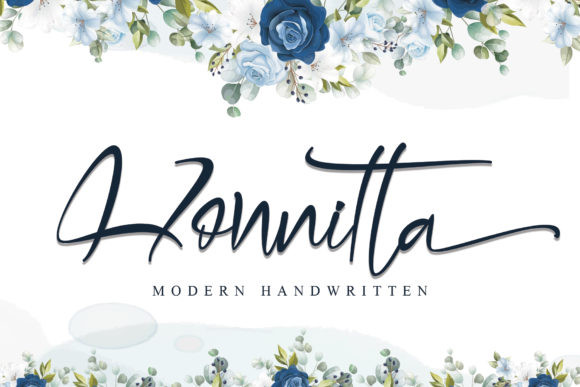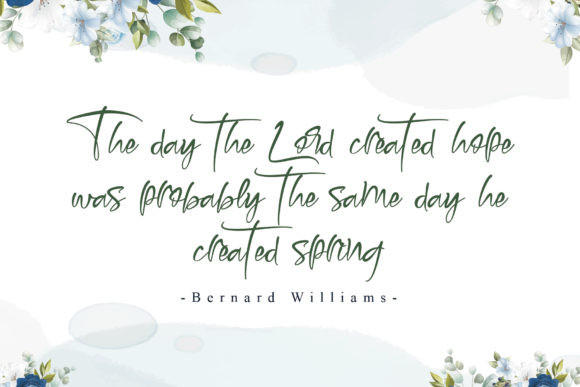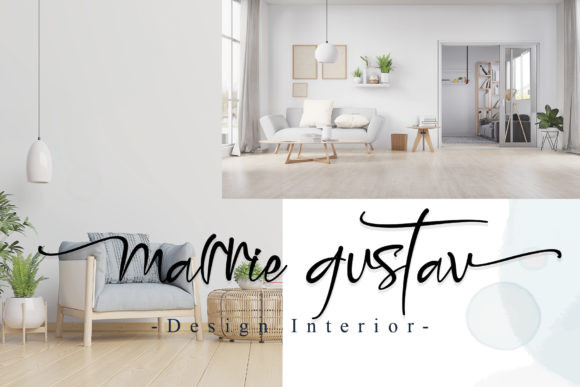
Honnitta Font
Honnitta is a beautiful handwritten font with a modern look. It features gorgeous swashes and ligatures that make this script incredibly versatile. Whether you’re looking for fonts for Instagram or calligraphy scripts for DIY projects, Honnitta will turn any creative idea into a true piece of art! This font is PUA encoded which means you can access all of the amazing glyphs and swashes with ease! It also features a wealth of special features including alternate glyphs and ligatures.